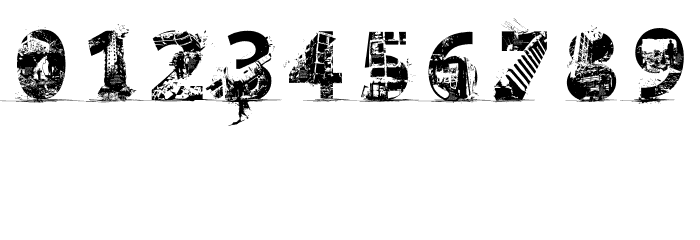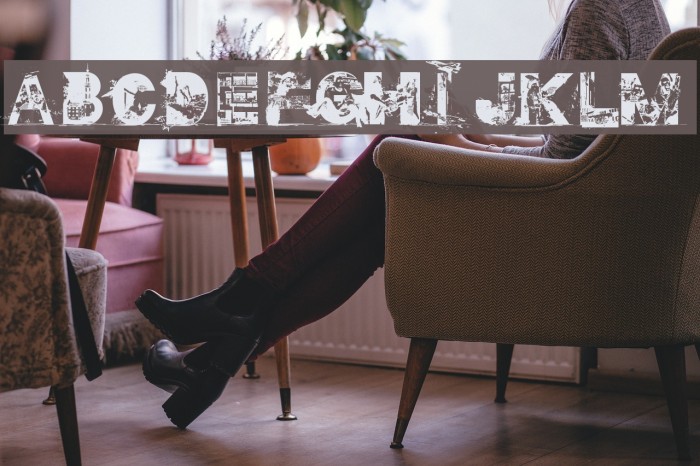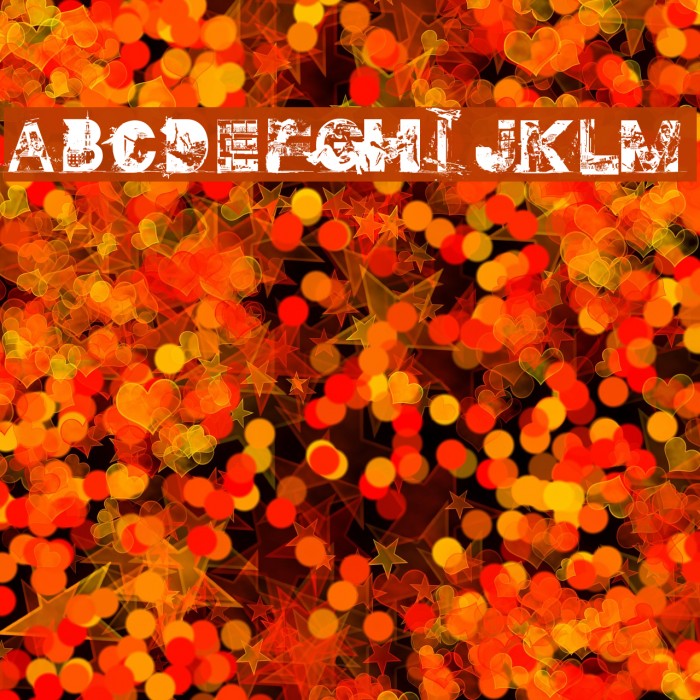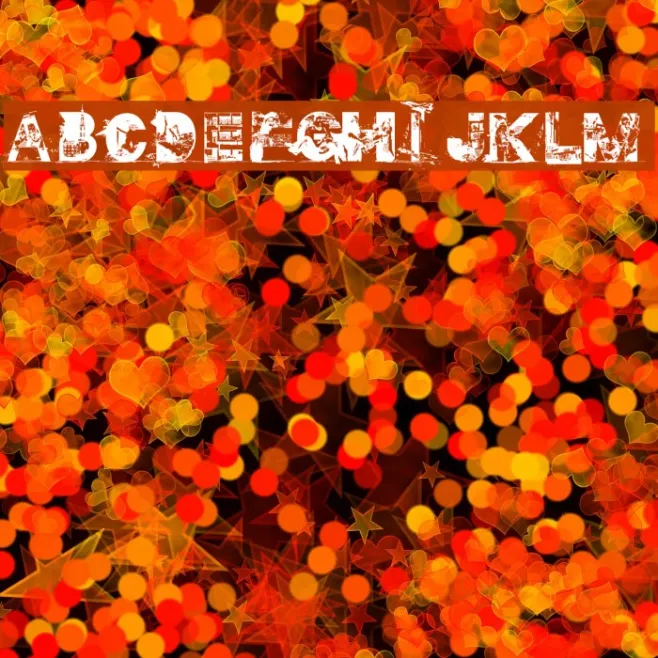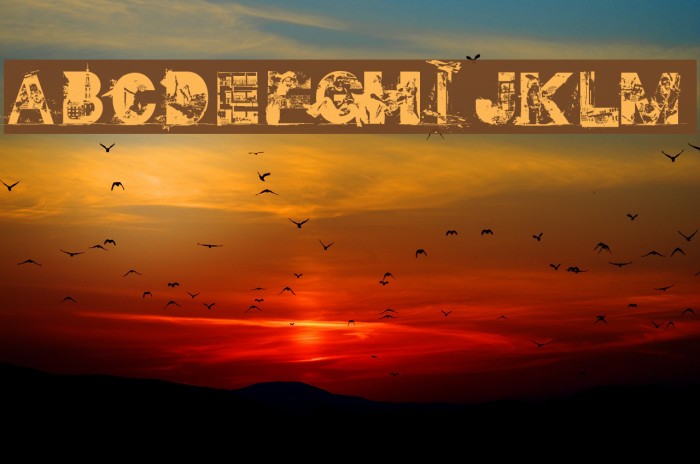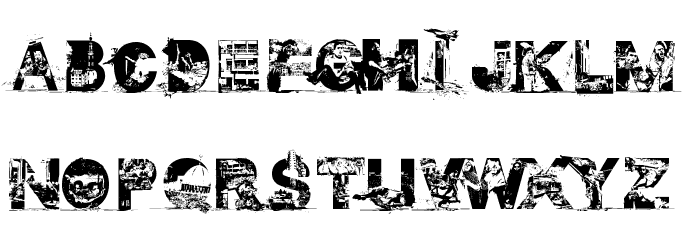
GAZA FONT Font
This font features a bold and distressed style, incorporating a grunge aesthetic with a textured overlay that gives each character a unique, worn appearance. The uppercase letters are prominent and impactful, making them suitable for attention-grabbing designs. The numbers and special characters maintain the same distressed look, ensuring consistency across all elements. The font's rugged and raw style evokes a sense of urban decay and artistic rebellion, making it ideal for projects that require an edgy and unconventional look.
A bold, distressed font with a grunge aesthetic and textured overlay.
• Proposed Projects: Ideal for album covers, streetwear branding, urban-themed posters, and rebellious art projects.
• Overall Style: Grunge, Urban, Edgy
• Use Case: Headlines, Logos, Posters